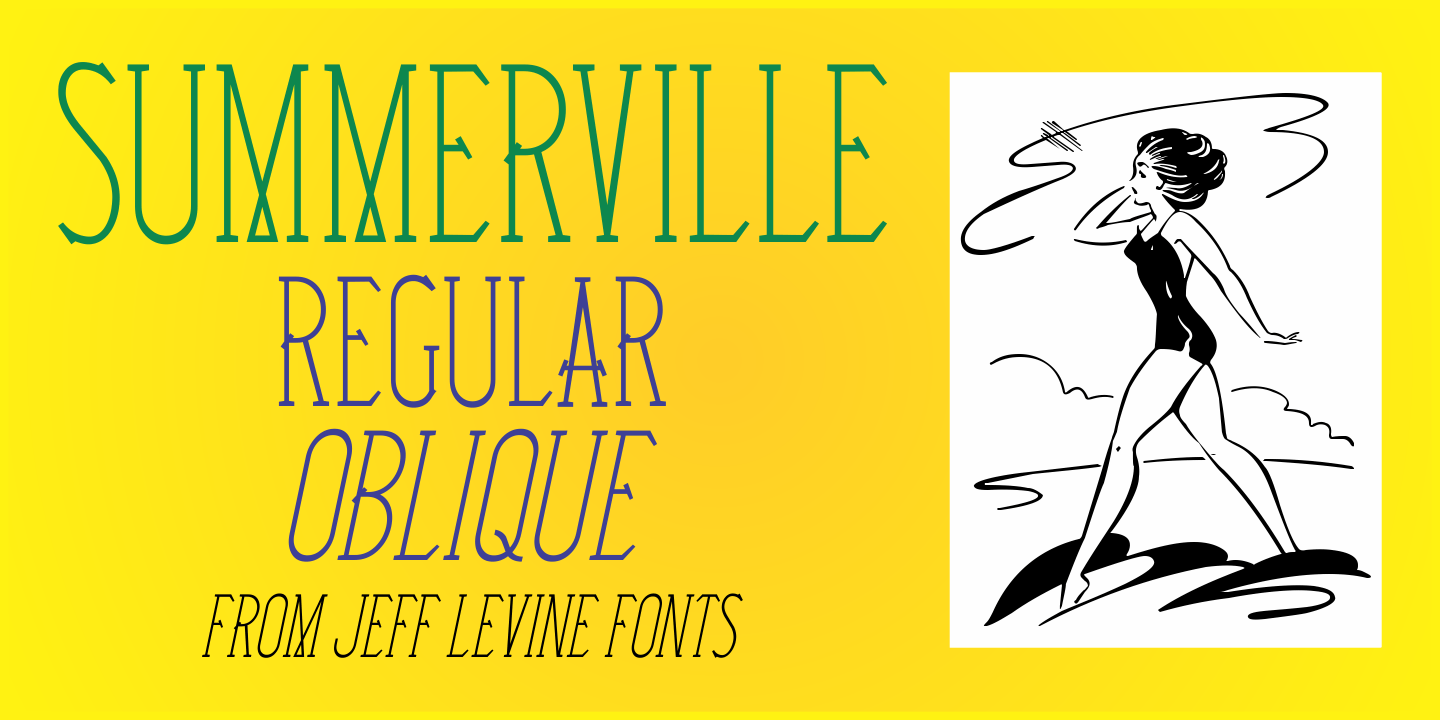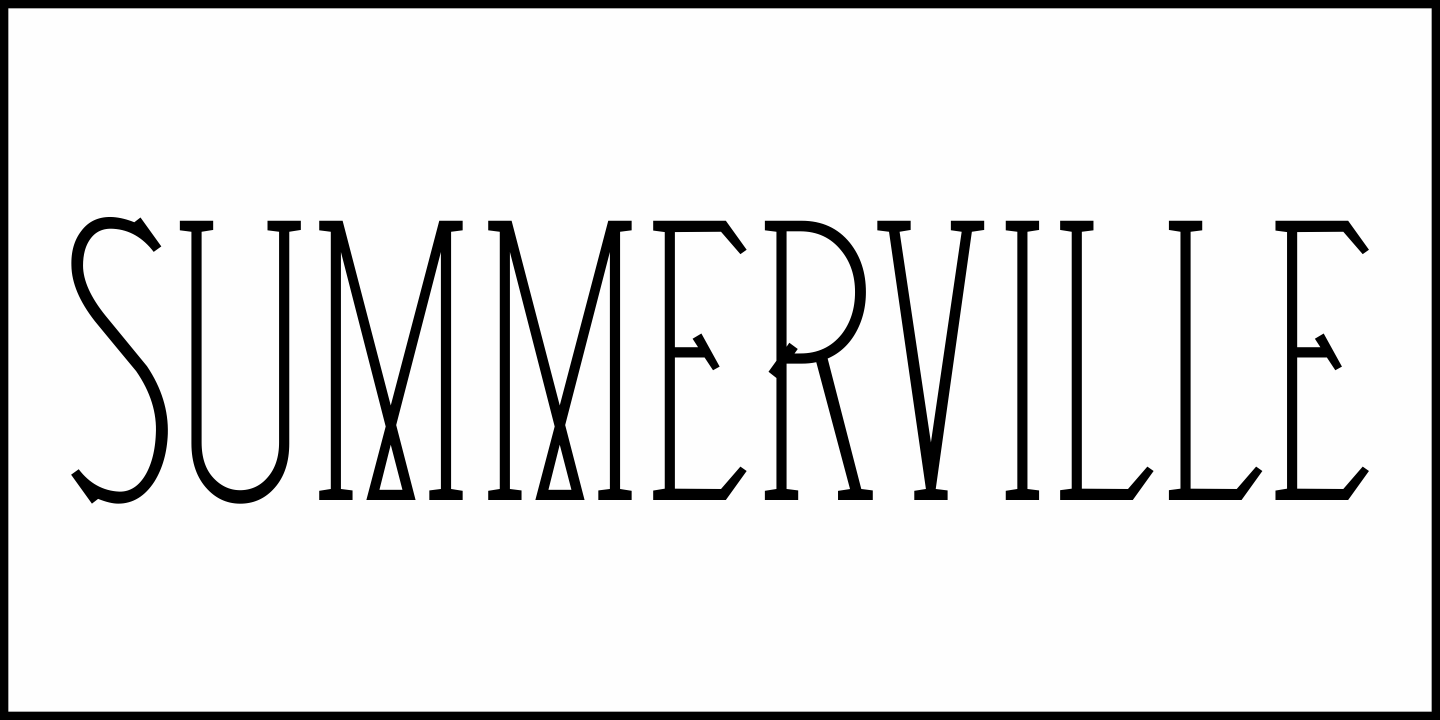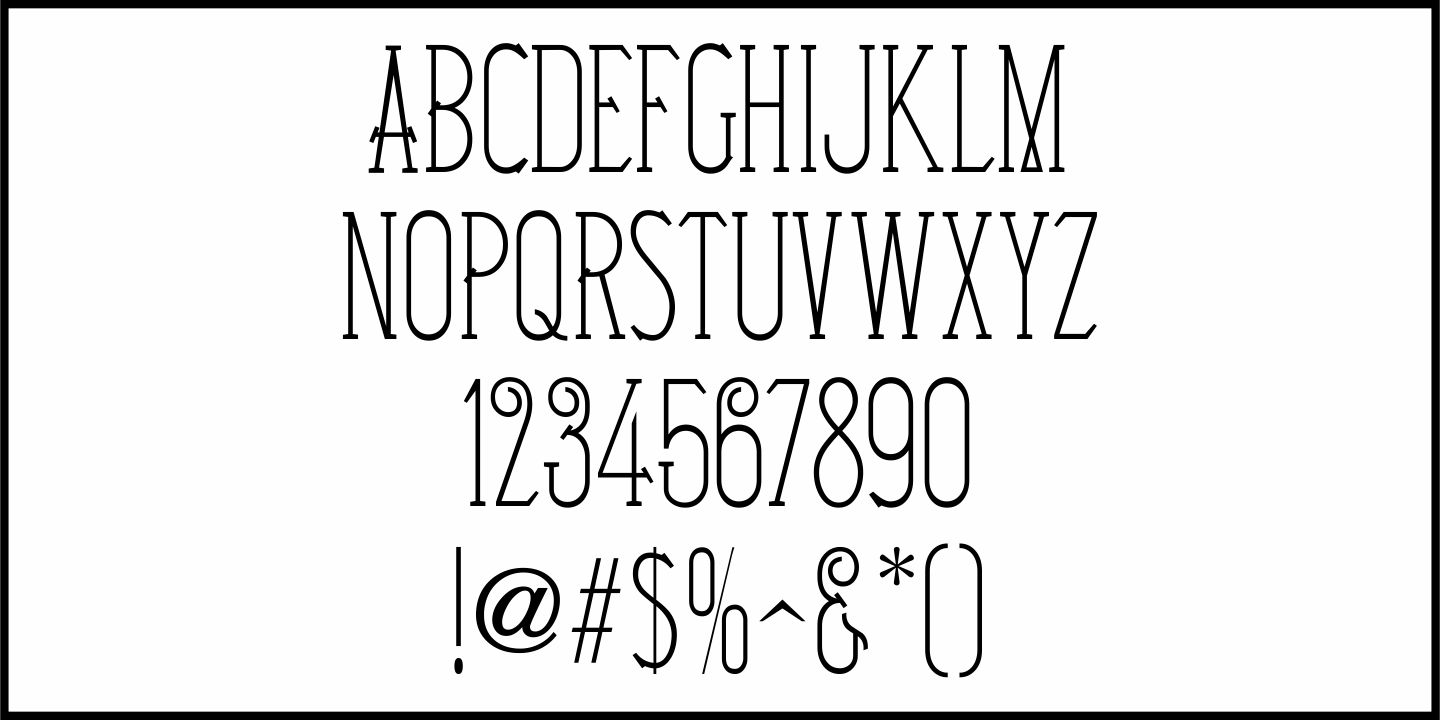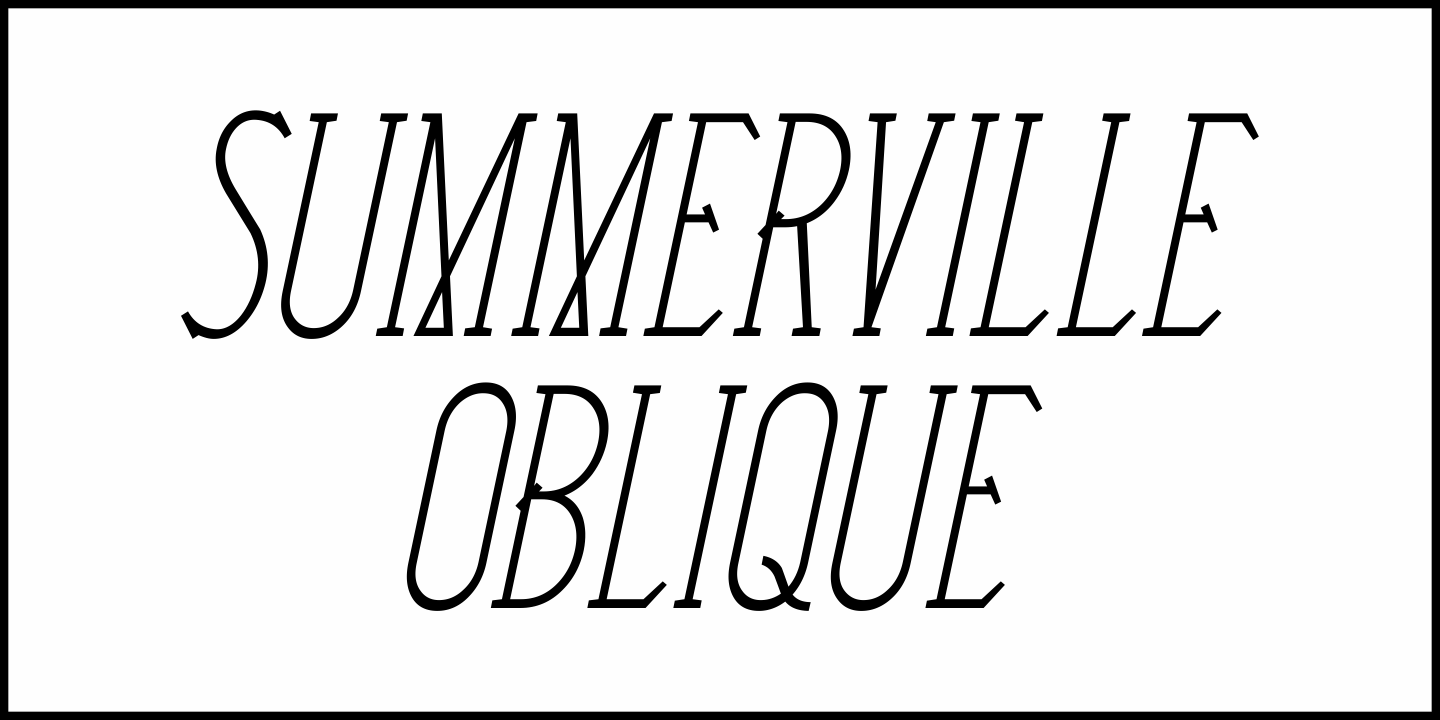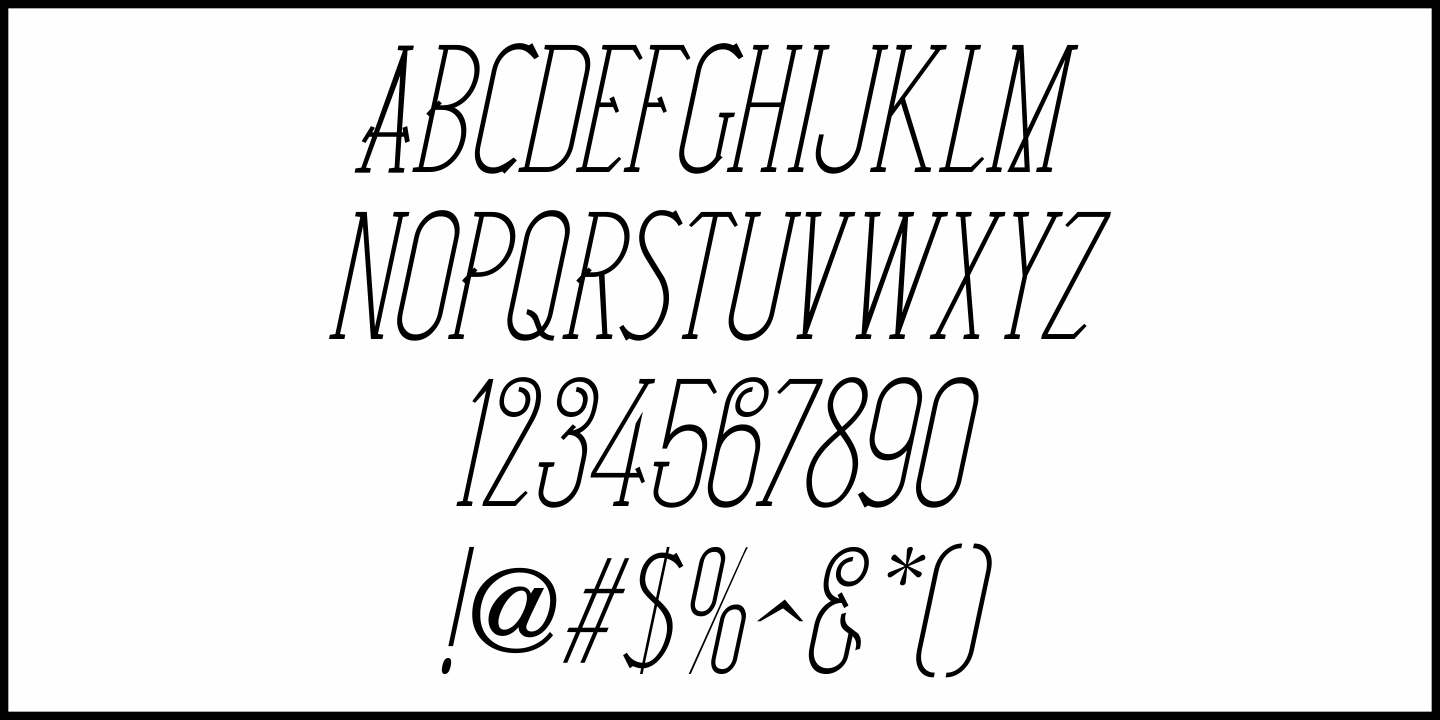
Summerville
Summerville JNL is a condensed Art Nouveau slab serif design inspired by a typeface called “Superior” [found in the Barnhart Brothers & Spindler type specimen book circa 1897], and is available in both regular and oblique versions.